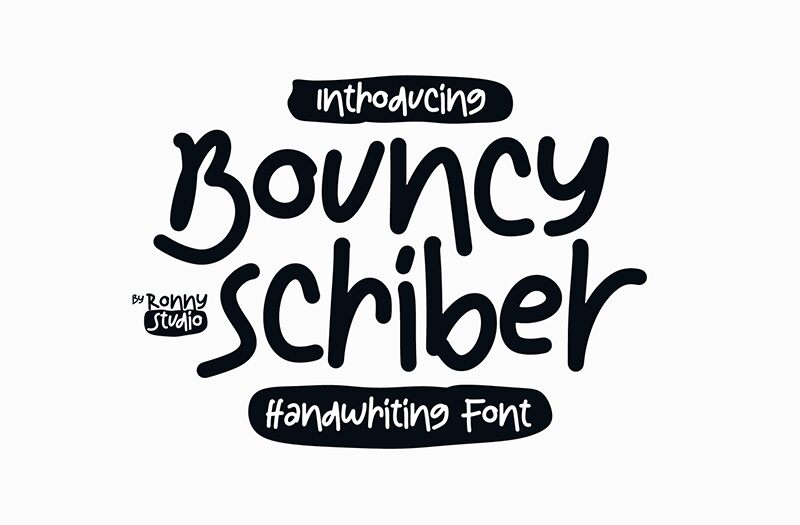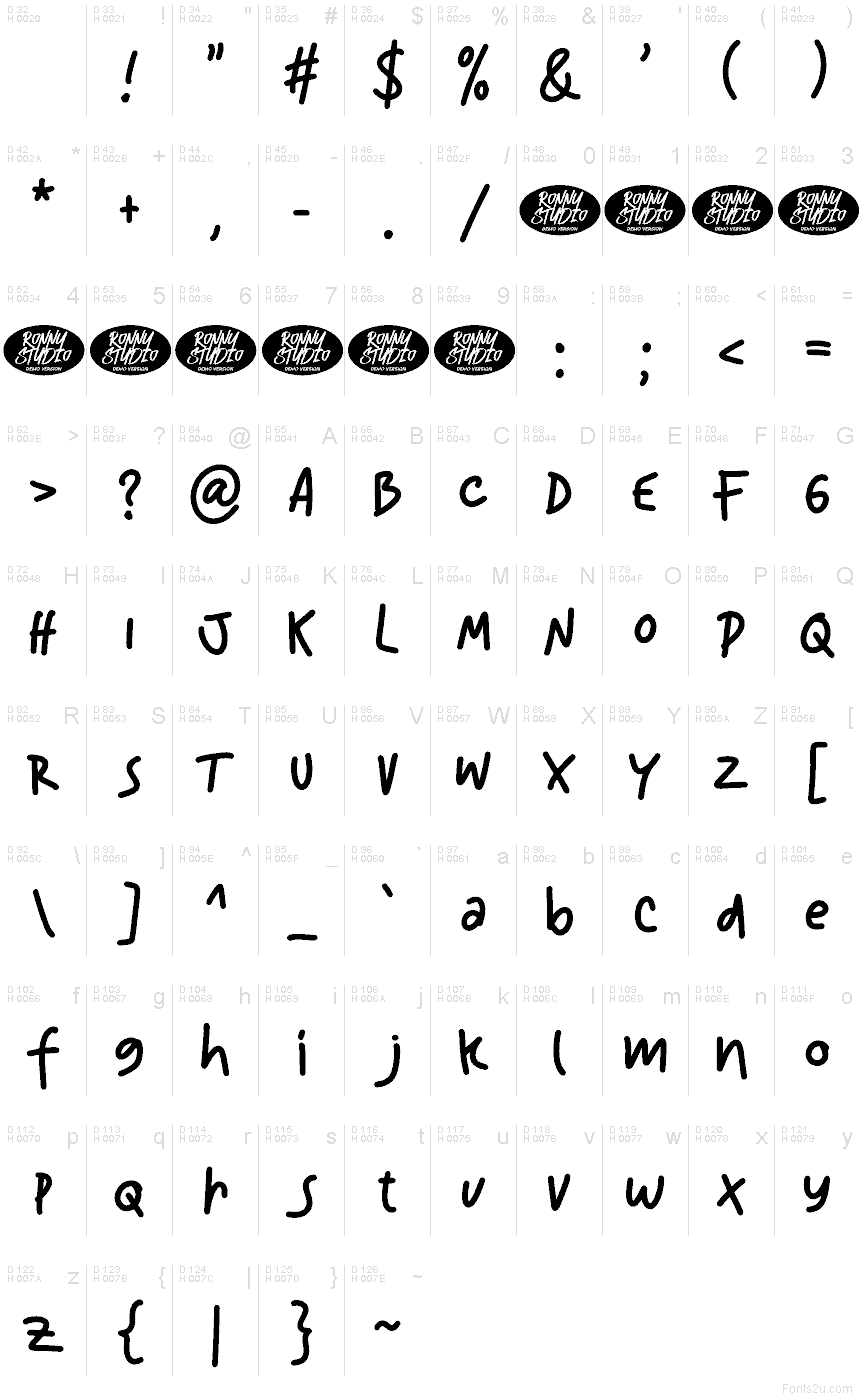
Bouncy Scriber DEMO
Bouncy Scriber font by Ronny Studio is a free handwritten typeface. It solves the classic “cute but messy” problem: the letters bounce with energy yet stay clean and readable, thanks to even strokes and roomy counters. The inky, marker-like lines feel warm and human without slipping into chaos, giving headlines a friendly lift and short paragraphs an easy rhythm.
Using Bouncy Scriber, your text pops on kids’ posters, classroom printables, snack packaging, stickers, greeting cards, and YouTube thumbnails. This free font holds its shape at small sizes and scales boldly for signage. Pair it with a simple sans to anchor the playfulness—set Bouncy Scriber for titles, the sans for supporting copy.